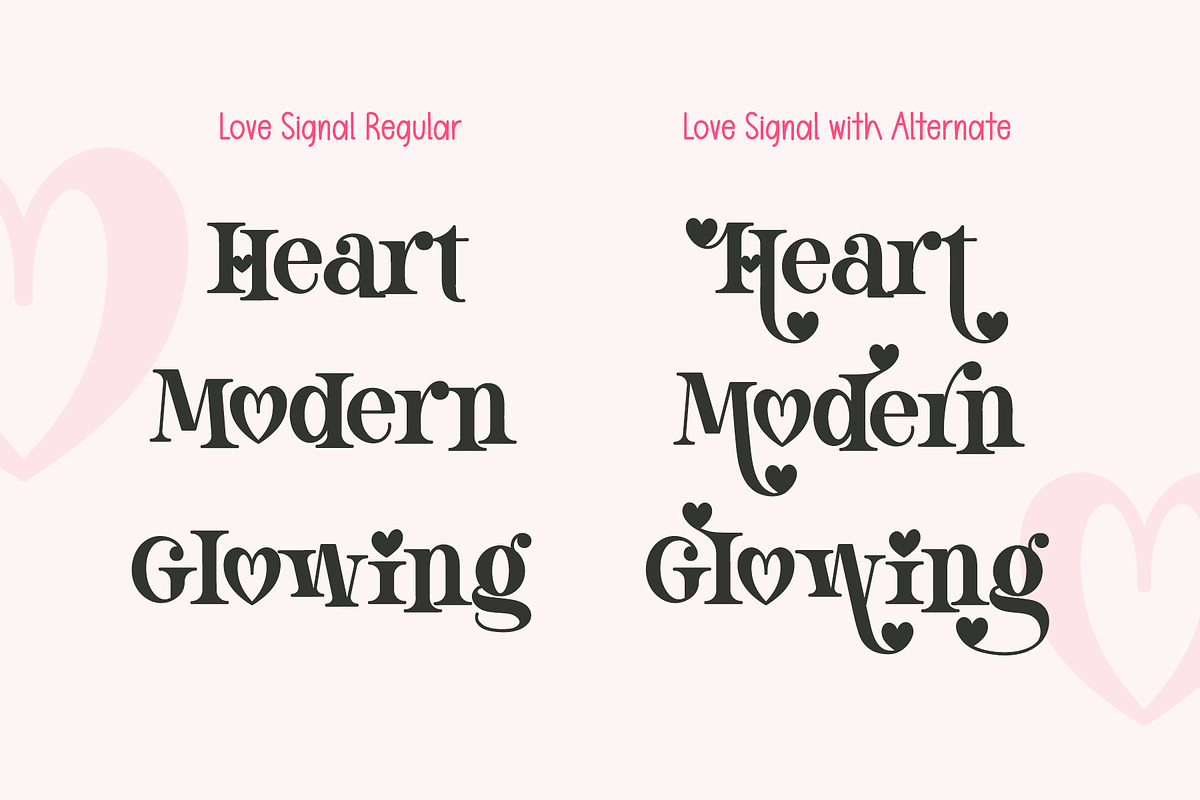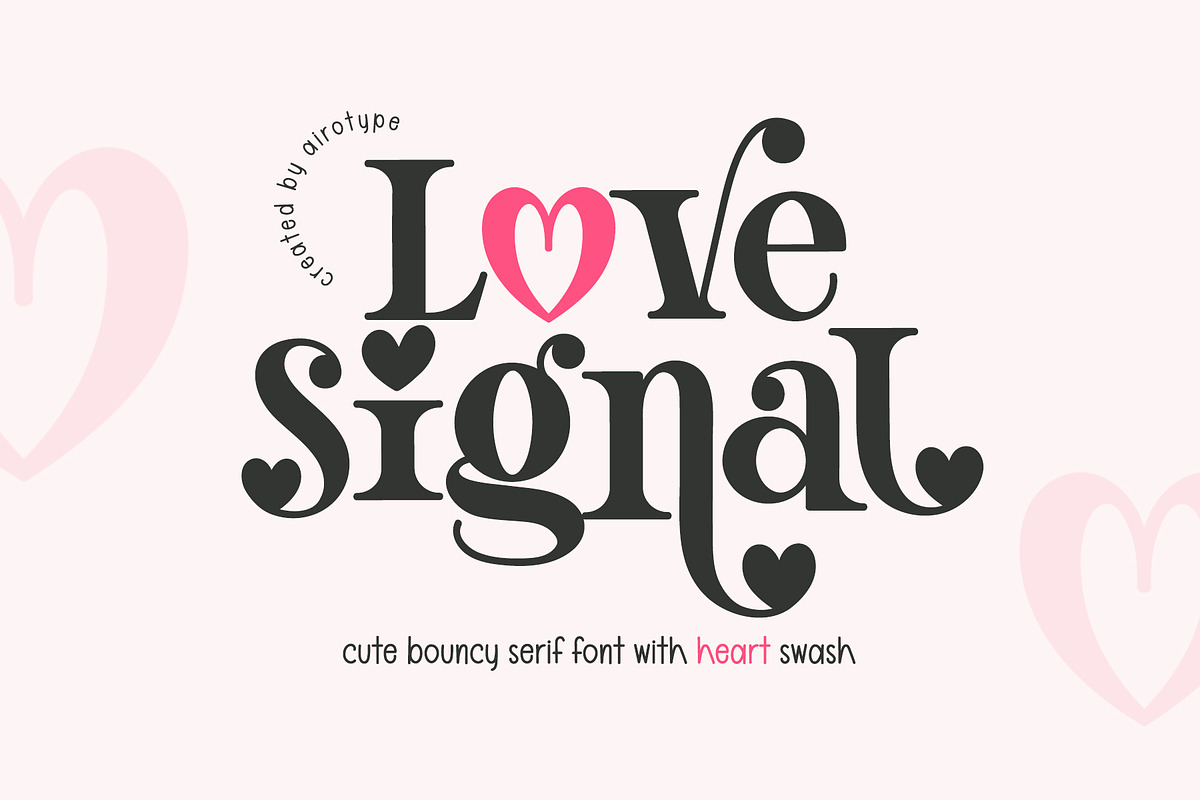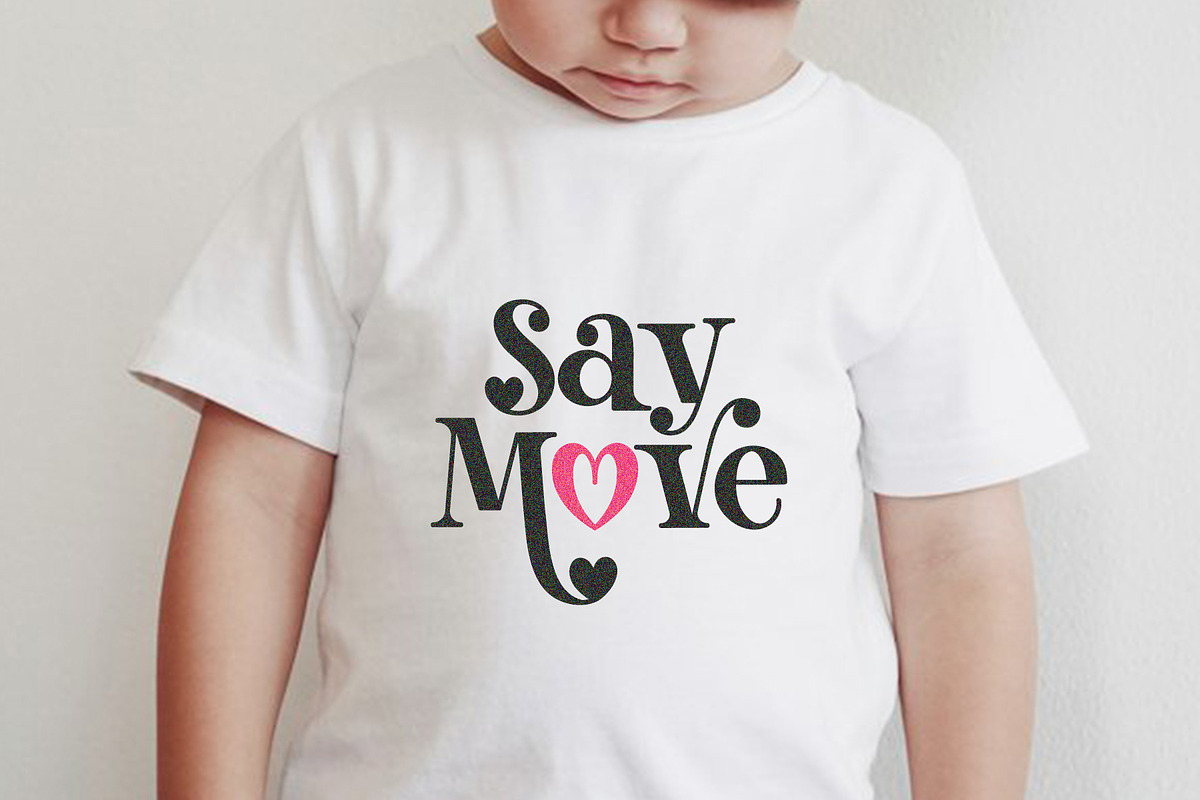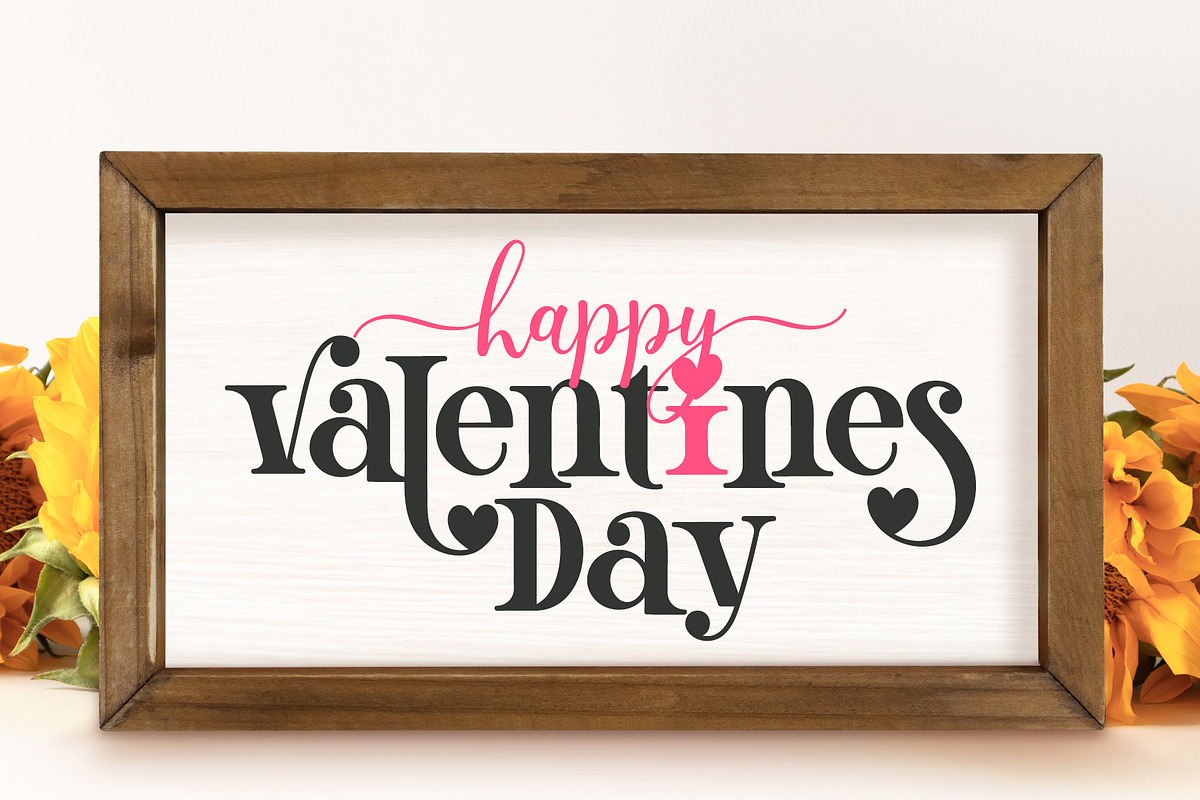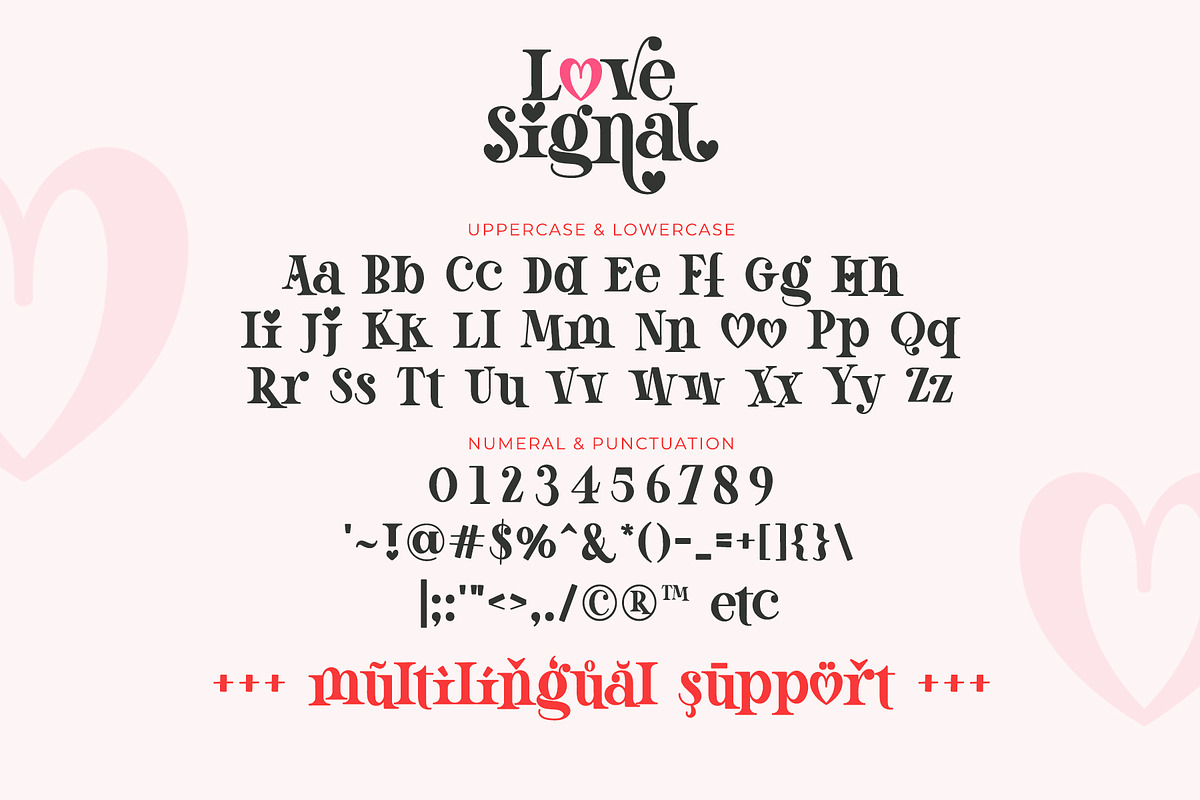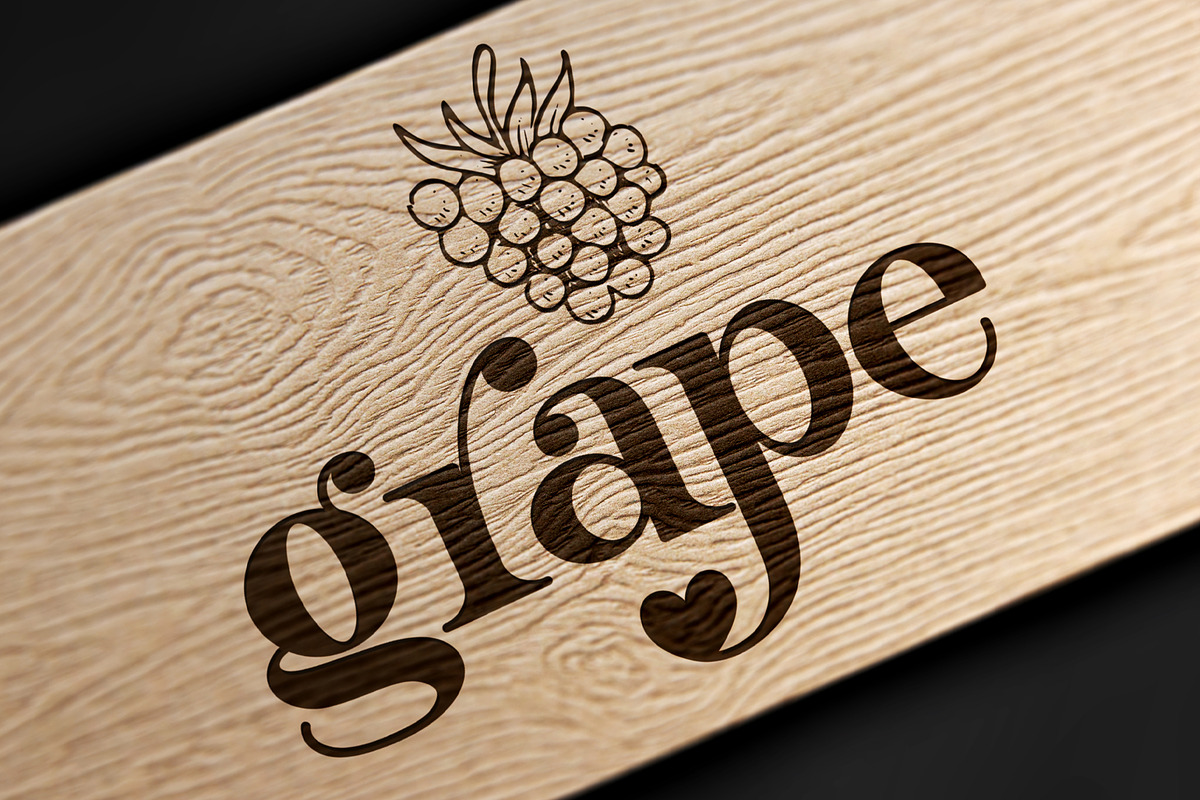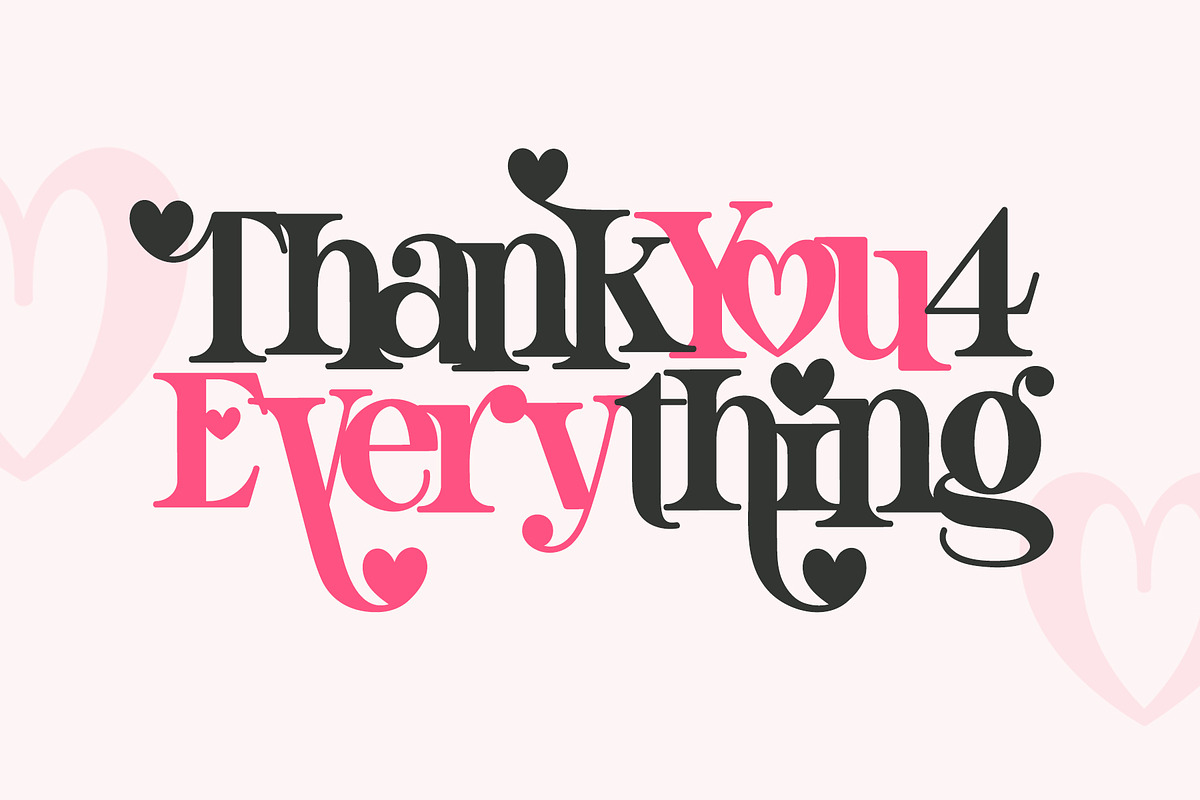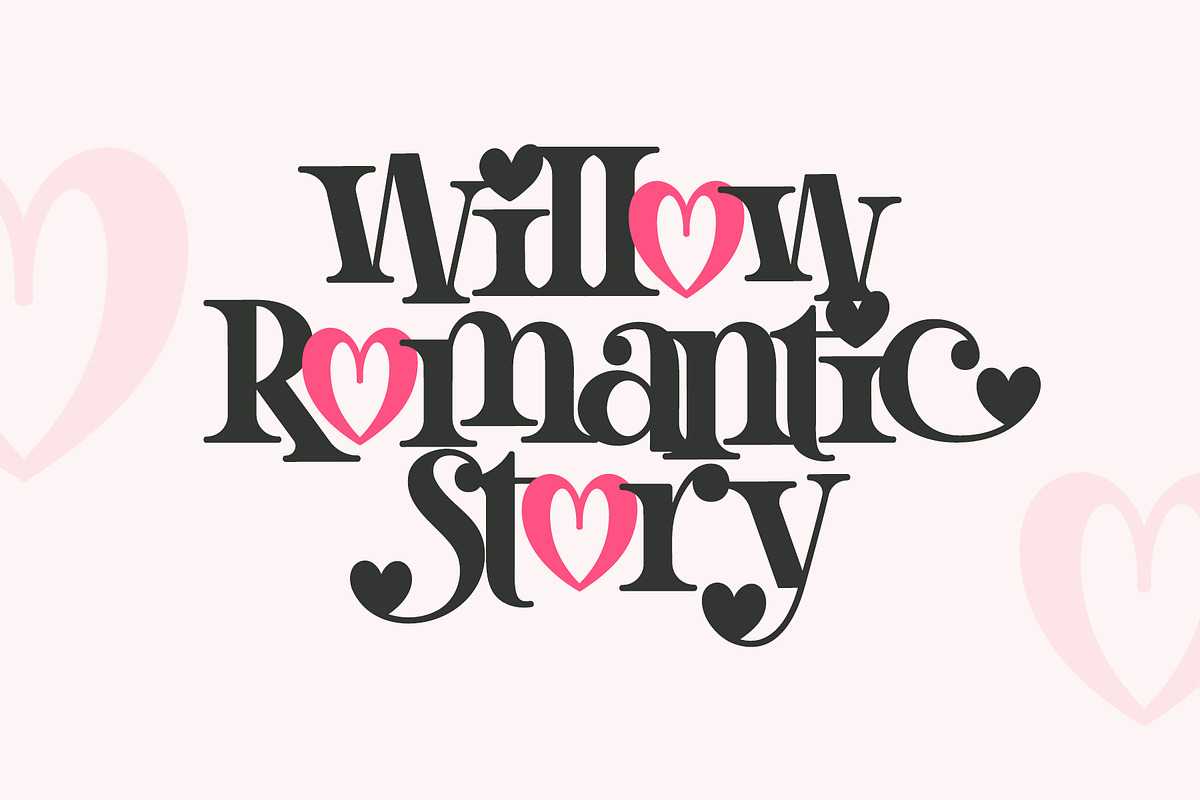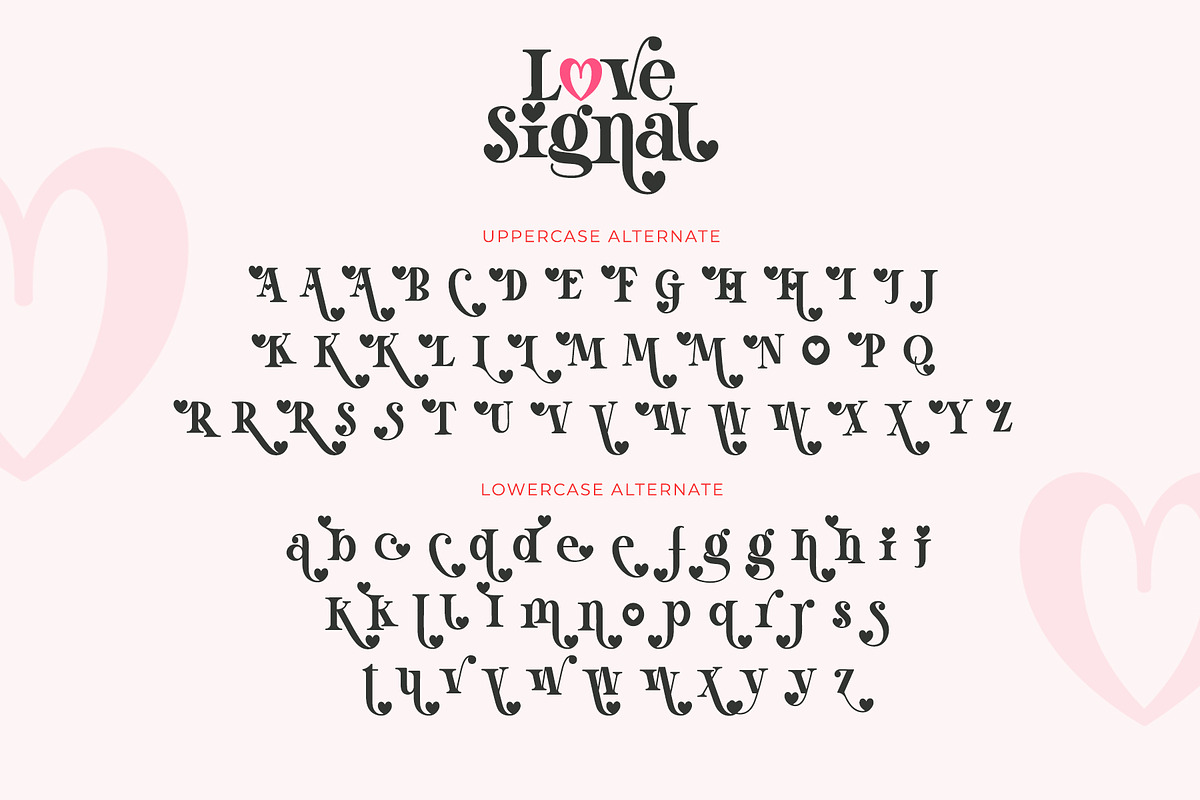
Love Signal - Serif Font with Heart
Love Signal is bouncy and cute serif font. This font has happy and romantic vibes, with elegant and modern look.
Love Signal font has extra heart accent glyphs that can be accessed with Font Book (Mac) or Character Map UWP (PC). Make sure you know how to access extra glyphs in the program you are using.
This font is beautiful and lovely font for wide ranges of design, such as valentine's day, wedding, crafting, birthday, logo, stickers, t-shirt, sublimation, quotes, and many more.
Uppercase and Lowercase (include extra glyphs/alternate)
Numeral and Punctuation
Most Multilingual Accent